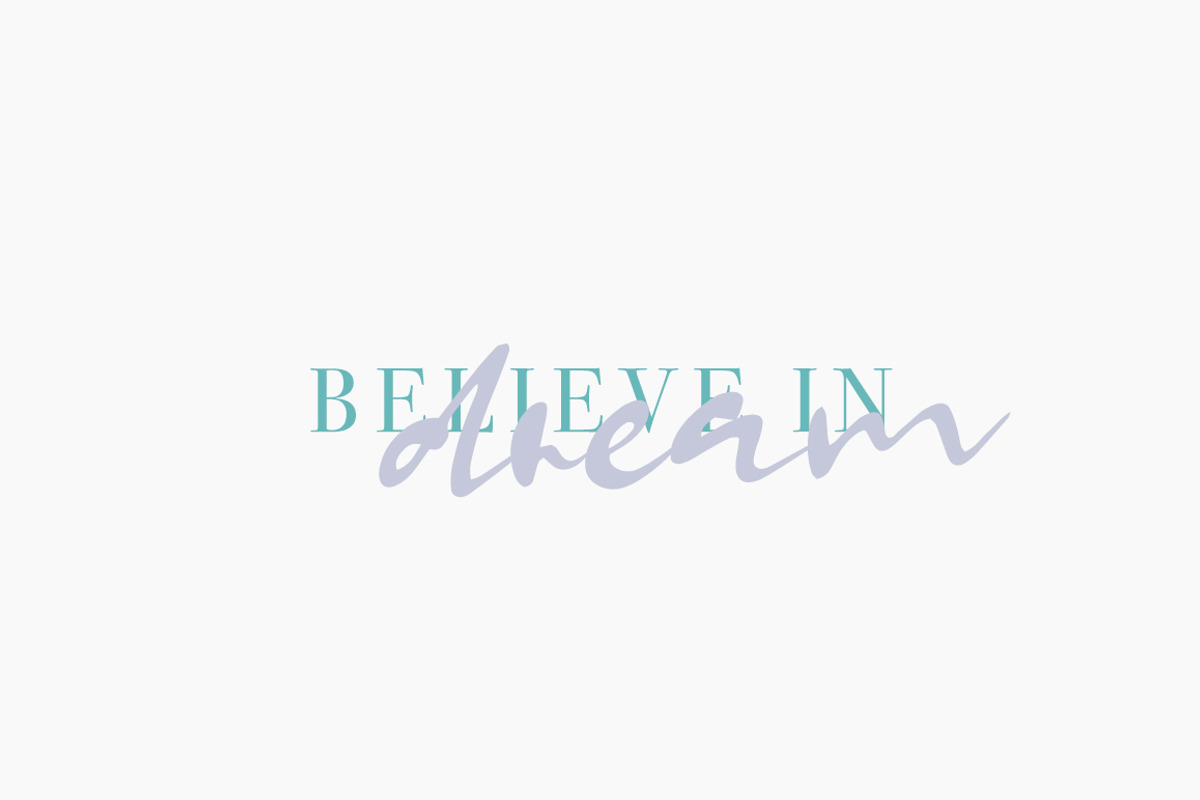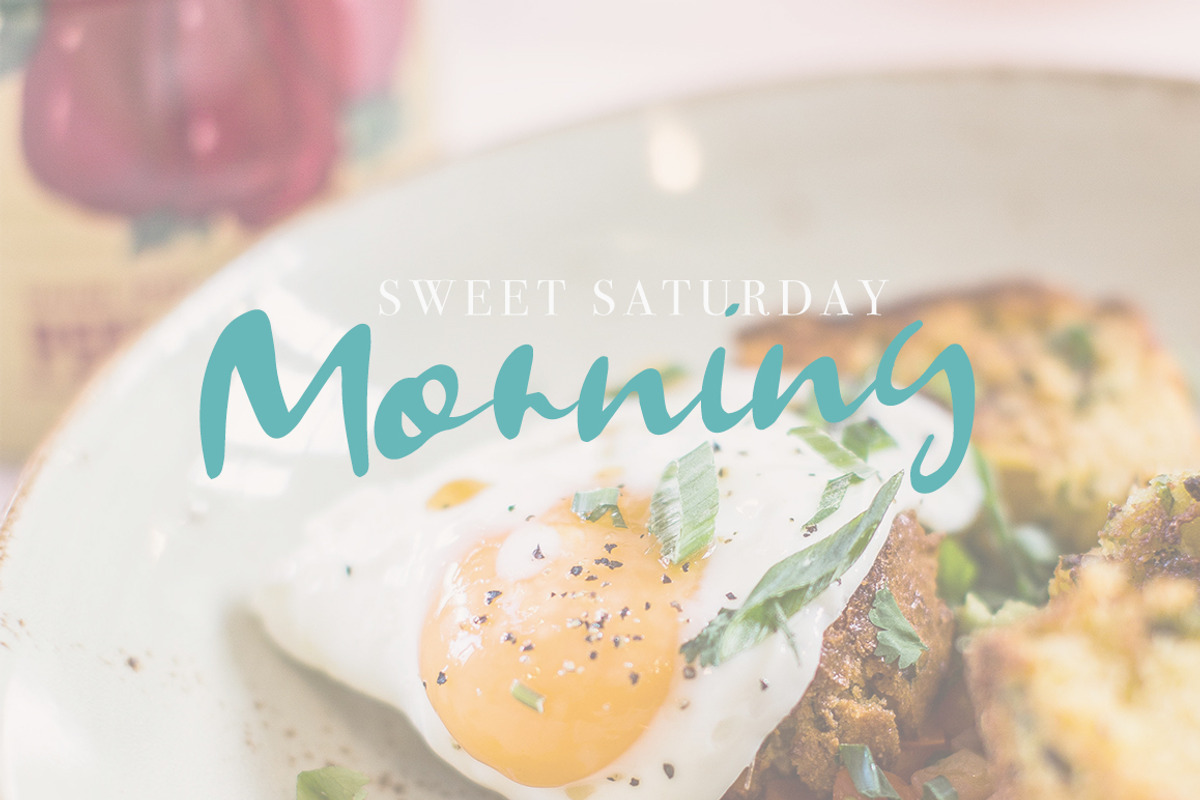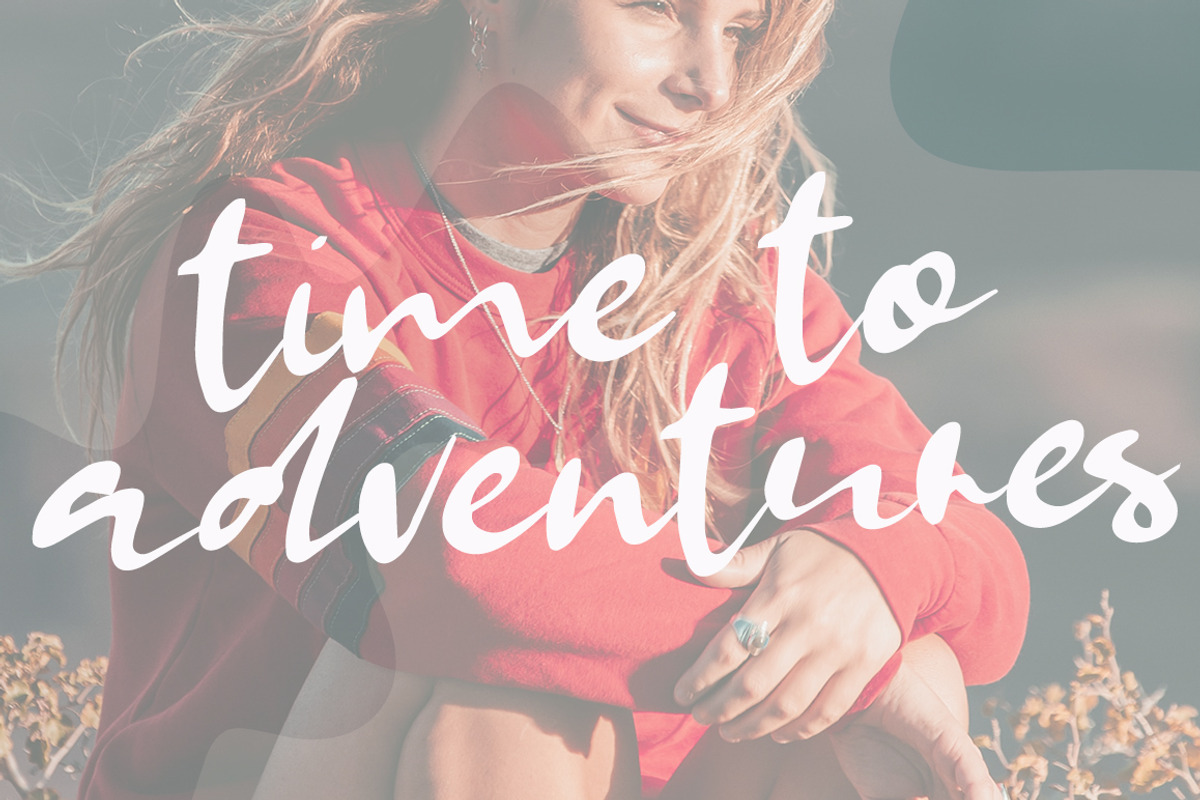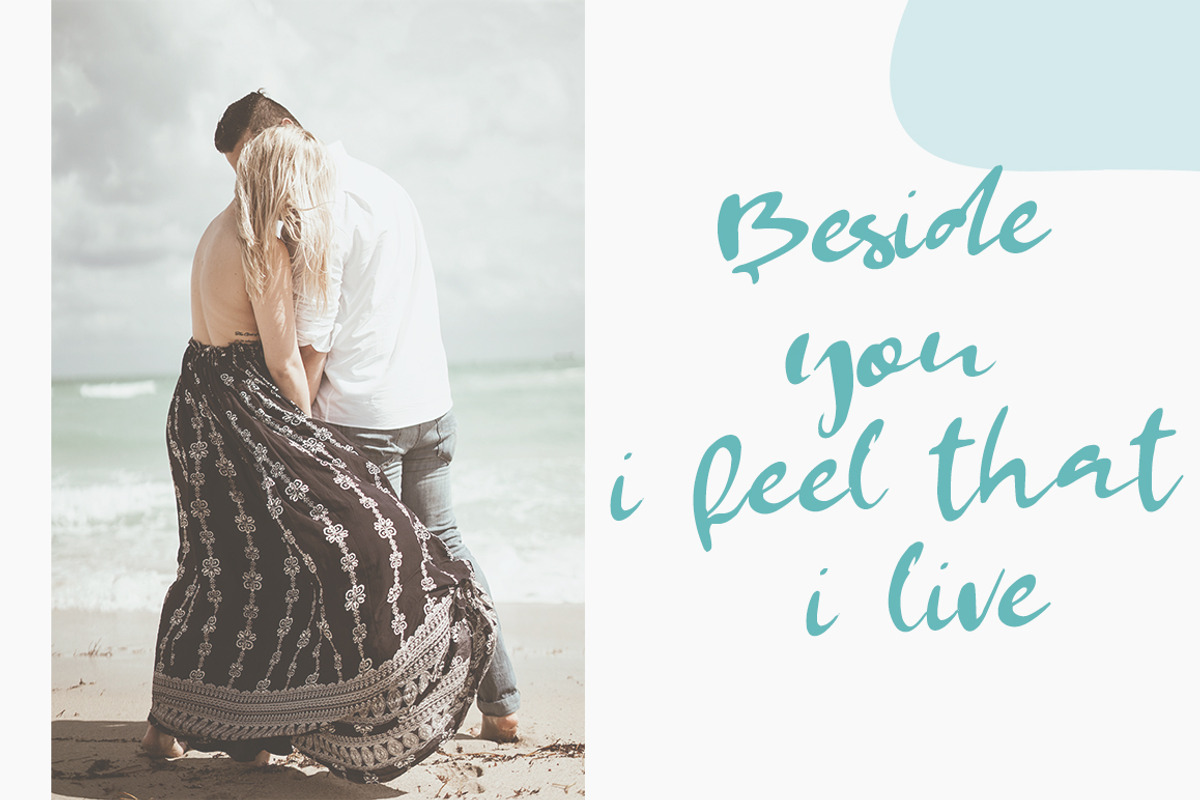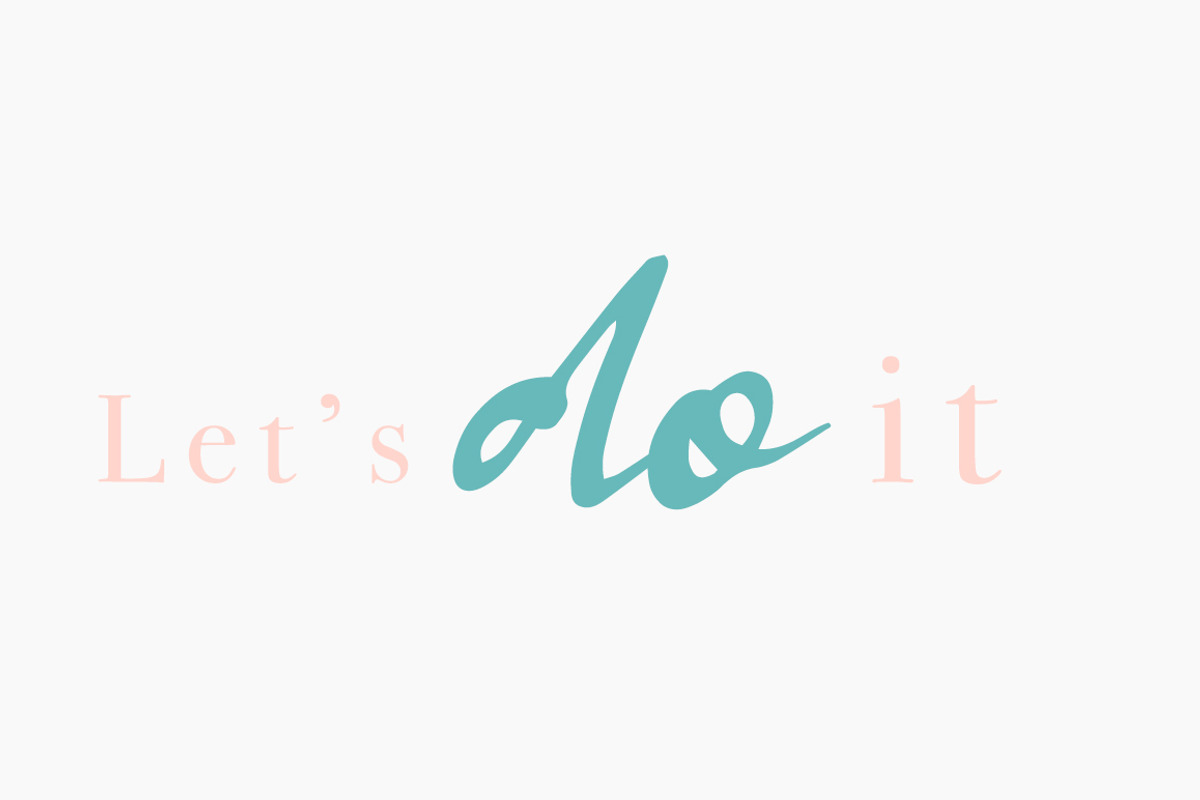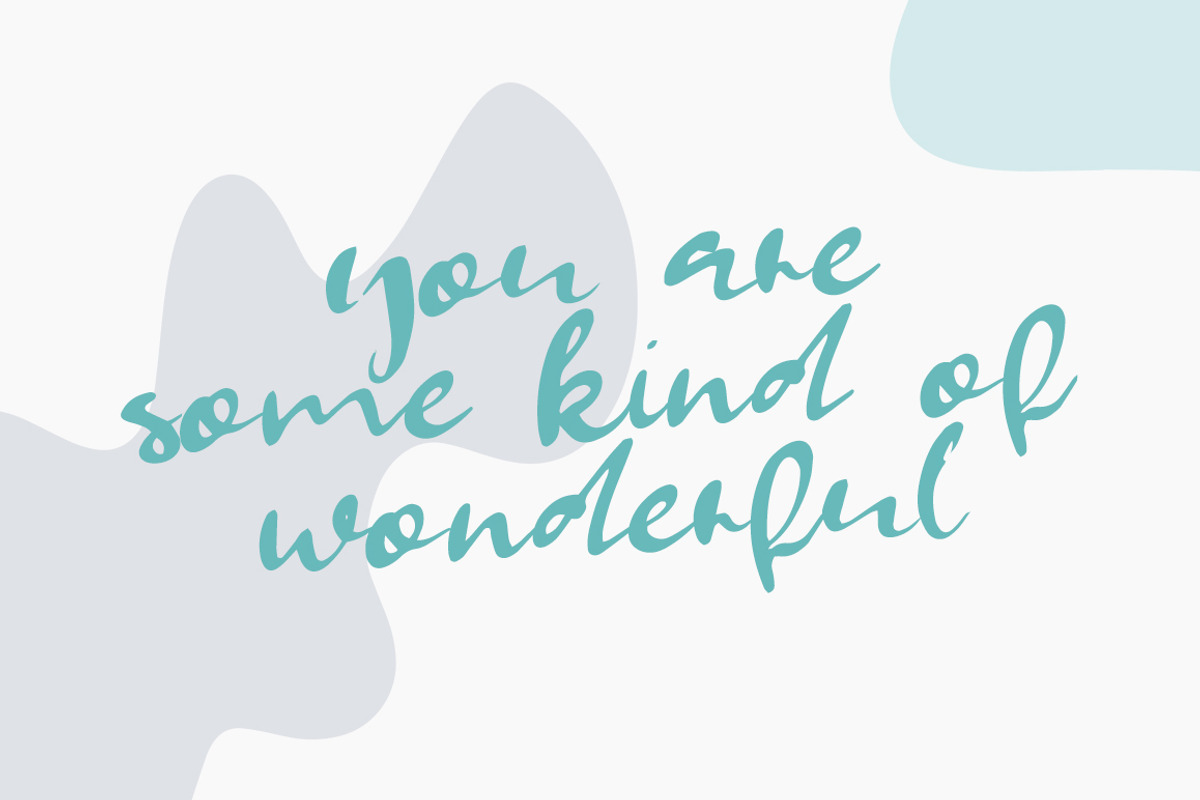
Wonderful / Handwritten Brush Font
Wonderful is a handwritten brush font
This font pairs beautifully with many fonts and can be used in a variety of different scenarios! Perfect for many design projects such as logo design, branding, blog graphics, stylizing quotes, wedding stationery, art prints, collateral design, packaging, social media, and so on. I’ve truly enjoyed the process of creating Wonderful and hope that it will bring some magic into your projects!